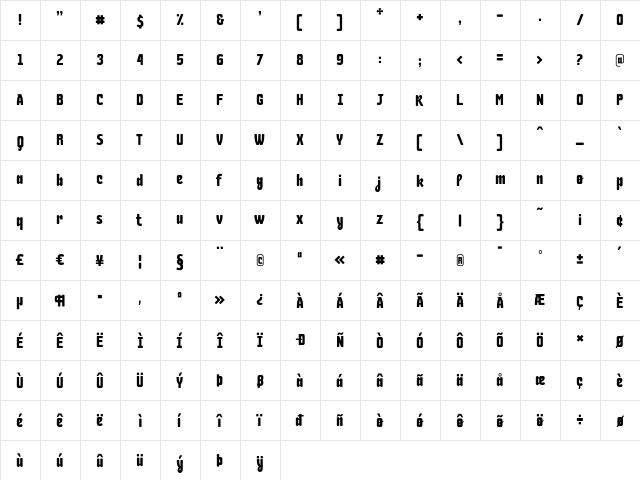
LargeExtra Regular
Design Context for LargeExtra Typeface
LargeExtra offers clean, dependable letterforms without strong stylistic allegiance, making it a practical choice for designers who need flexibility.